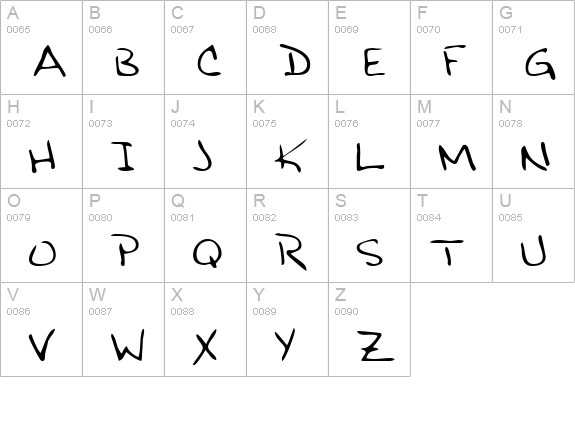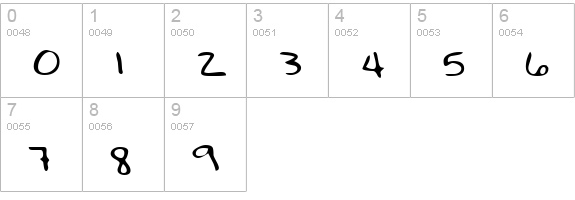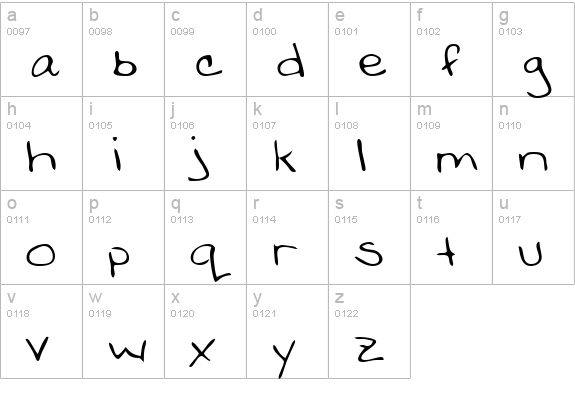
BobbiesHand Regular Font Details
BobbiesHand Regular is the standard, neutral variant in the BobbiesHand typeface family \xE2\x80\x94 well suited to general body text, paragraphs, and standard typographic work.
BobbiesHand Regular font is a charming and whimsical typeface that is perfect for adding a touch of creativity to your projects. With its handwritten style and unique character design, BobbiesHand Regular is sure to stand out and make a statement. This versatile font can be used for a variety of design projects, from invitations and greeting cards to posters and branding materials. The best part? BobbiesHand Regular font is available for free download at FontsMarket.com. So go ahead and enhance your designs with this delightful font without having to worry about any cost. Download BobbiesHand Regular today and let your creativity shine!